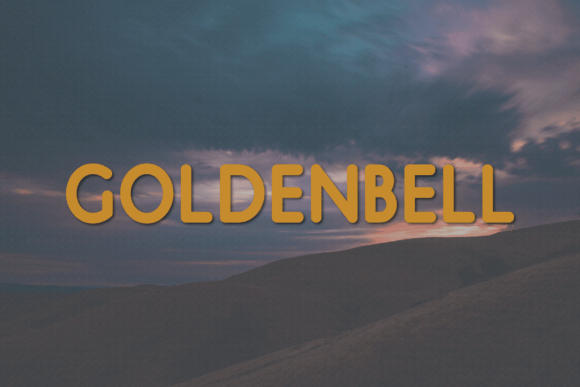
Have you ever stared at a blank canvas, wondering how to bring your vision to life? The struggle is real, but the solution is often just a font away. As designers, we’ve all been there – searching for the perfect typeface to elevate our work. That’s why we’re excited to introduce the Goldenbell Font, a modern, classy sans serif typeface that’s about to become your new go-to.
With its clean lines, elegant curves, and versatility, the Goldenbell Font is the perfect choice for logos, weddings, invitations, quotes, advertisements, print, magazines, and more. Whether you’re a seasoned pro or just starting out, this font is a valuable addition to any designer’s toolkit. Its range of upper characters, numbers, punctuation, and symbols make it an extremely useful asset for any creative project.
Goldenbell Font Key Features
- Unique Characteristics: The Goldenbell font features a unique blend of modern and classic elements, with intricate details and elegant lines that evoke a sense of sophistication and refinement.
- Font Style: The font comes in multiple styles, including regular, bold, italic, and bold italic, allowing designers to create a variety of visual effects and moods.
Goldenbell Font Review
Overall, I’m quite impressed with the Goldenbell Font! It has a unique and elegant charm that’s perfect for creating a warm and inviting atmosphere in your designs. ✨ The font’s curves and lines are carefully crafted to evoke a sense of sophistication and luxury, making it an excellent choice for high-end branding, advertising, and editorial projects.
One of the things that stand out about Goldenbell is its excellent legibility. The font is easy to read, even at smaller sizes, making it a great choice for body text or headlines. Additionally, the font’s versatility is a major plus – it works well in a variety of contexts, from modern and sleek to classic and vintage.
However, there are a few limitations to consider: ⚠️ The font may not be the best choice for projects that require a lot of bold or italic text, as the font’s bold and italic styles can be a bit lacking. Additionally, some users may find the font’s size limitations to be restrictive, although this is more of a minor issue than a major one.
- Works well for high-end branding, advertising, and editorial projects
- Excellent legibility, even at smaller sizes
- Versatile and adaptable to various design contexts
- Unique and elegant charm
- May not be the best choice for projects with extensive bold or italic text
- Size limitations may be restrictive for some users
Goldenbell Font: A Practical Application Guide
The Goldenbell font is ideal for creating elegant and sophisticated designs. Use it for:
– Luxury branding and marketing materials
– High-end packaging and labels
– To create a vintage or antique look, use the Goldenbell font in conjunction with distressed textures and effects.